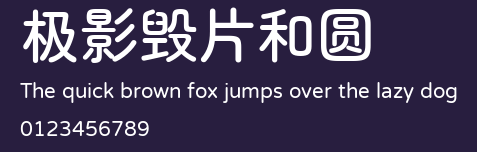
• Font Name: 极影毁片和圆
• Font ID: KTXP_ComRound Medium:Version 1.00
• Full Font Name: 极影毁片和圆-Medium
• Version: Version 1.00;November 5, 2021;FontCreator 13.0.0.2681 64-bit
• PostScript Name: KTXP_ComRound-Medium
• Character Count: 12585
About 极影毁片和圆.ttf
极影毁片和圆.ttf is a modern, elegant sans-serif font designed for ultimate readability and visual harmony. Perfect for branding, headlines, web design, and print materials.